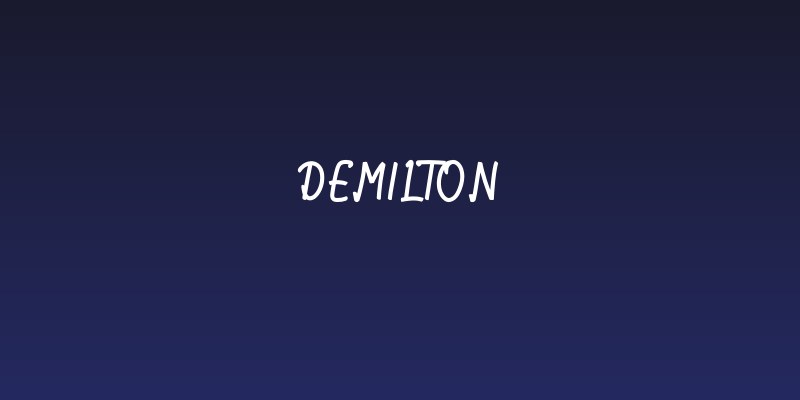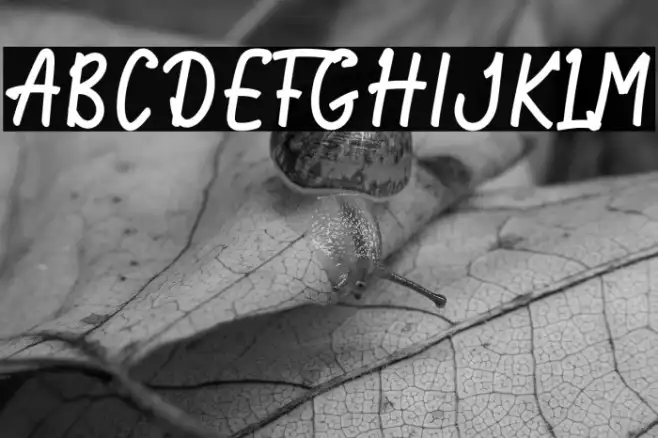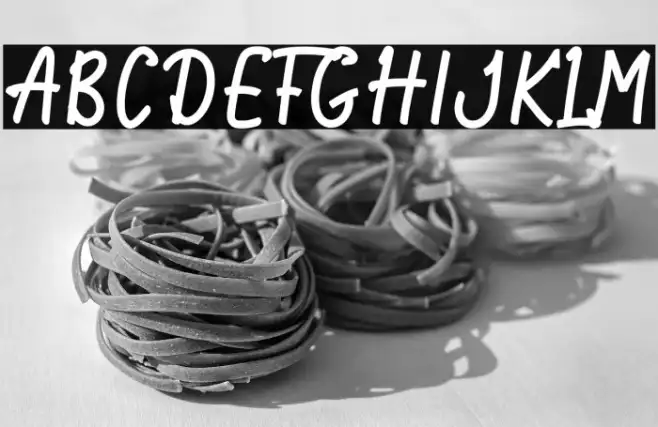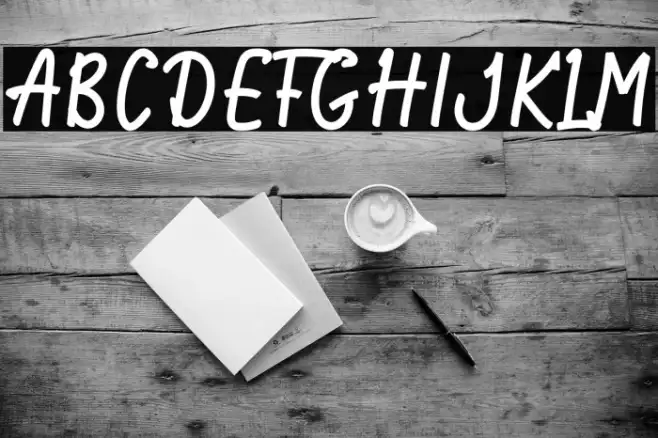
Demilton Font
Demilton Description
This font features a playful and casual handwritten style, characterized by its smooth, flowing lines and slightly irregular shapes. The uppercase letters are bold and prominent, while the lowercase letters maintain a consistent, connected script appearance. The font includes a full set of numerals and a variety of special characters, adding versatility to its use. Its informal and friendly aesthetic makes it ideal for projects that require a personal touch or a relaxed vibe.
| Use Case | Logos, Headlines, Informal Text |
| Proposed Projects | Ideal for greeting cards, invitations, personal branding, and social media graphics. |